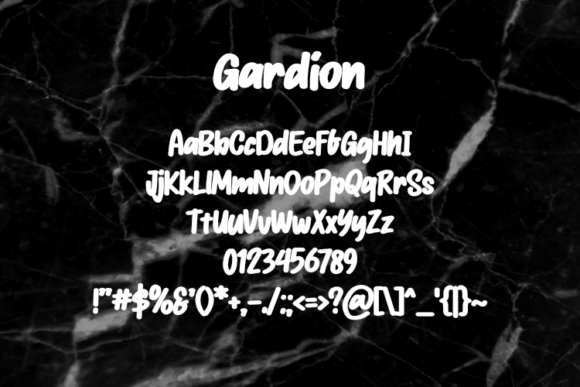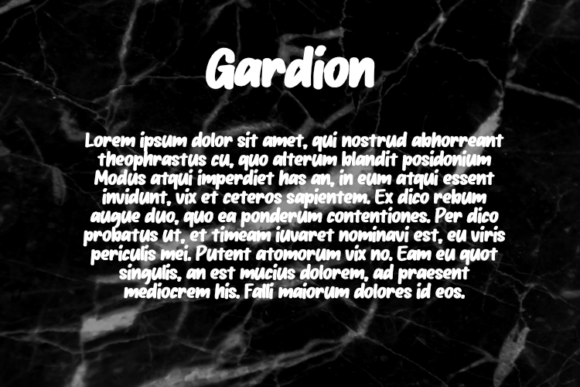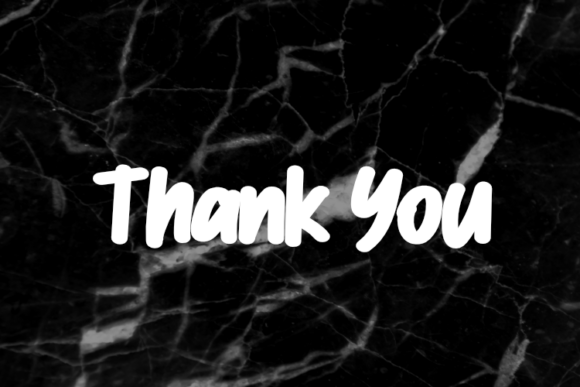
Unlock Endless Design Possibilities with Gardion Font
Welcome to the world of limitless creativity with Gardion Font, the ultimate typeface for designers, crafters, and artists. This expertly designed font is specifically crafted to elevate your design projects, whether you’re embellishing clothing, t-shirts, or a wide range of other products. With its seamless integration with all design programs and versatile OTF file, Gardion Font opens up a realm of possibilities for creating unique and captivating designs.
Gardion Font is more than just a typeface; it’s a tool that empowers designers and crafters to bring their imagination to life. Its carefully crafted design ensures that it works flawlessly with popular design software, allowing you to experiment with various styles, colors, and textures. Whether you’re a professional designer or a DIY enthusiast, Gardion Font is the perfect companion for your creative journey.
Key Features of Gardion Font
- Versatility: Gardion Font is suitable for a wide range of designs, from clothing and t-shirts to posters, stickers, and more.
- Limitless Possibilities: With Gardion Font, your creativity knows no bounds. Experiment with different styles, sizes, and colors to create truly unique designs.
Exploring the Boundless Potential of Gardion Font
Gardion Font is not just a typeface; it’s a gateway to a world of creative possibilities. Its versatility makes it an ideal choice for designers and crafters who want to push the boundaries of typography design. Whether you’re looking to create stunning text-based designs or intricate patterns, Gardion Font provides the perfect foundation for your projects.
Tips and Tricks for Getting the Most Out of Gardion Font
- Experiment with Different Styles: Try out various font styles, sizes, and colors to create unique and eye-catching designs.
- Combine with Other Fonts: Pair Gardion Font with other typefaces to create interesting and dynamic text combinations.
- Play with Textures and Patterns: Add an extra layer of depth to your designs by incorporating textures and patterns.
- Use it for Branding: Gardion Font is perfect for creating custom logos, labels, and packaging designs that stand out.
Why Choose Gardion Font?
With so many fonts available, why choose Gardion Font? The answer lies in its unique combination of style, versatility, and ease of use. Gardion Font is designed to inspire creativity and empower designers and crafters to produce high-quality designs that captivate and engage. Whether you’re a seasoned professional or just starting out, Gardion Font is the perfect choice for anyone looking to elevate their design game.
In conclusion, Gardion Font is a game-changer for designers and crafters who want to take their creative projects to the next level. With its seamless integration, versatile OTF file, and limitless possibilities, Gardion Font is the perfect tool for unlocking your full creative potential. So why wait? Dive into the world of Gardion Font today and discover a universe of design possibilities waiting to be explored.